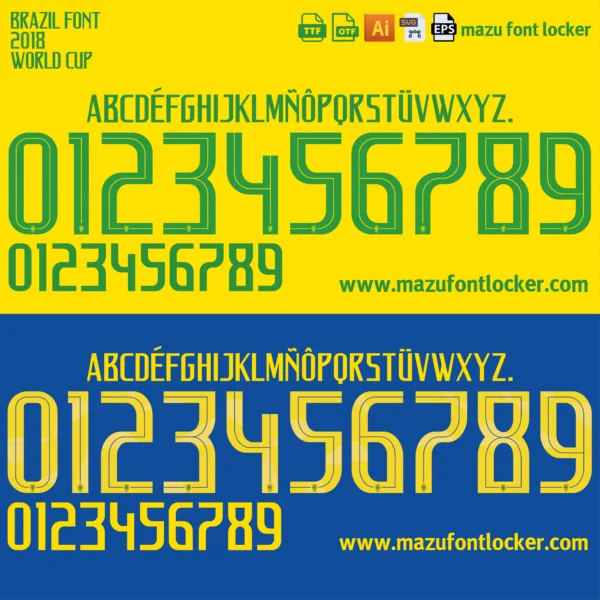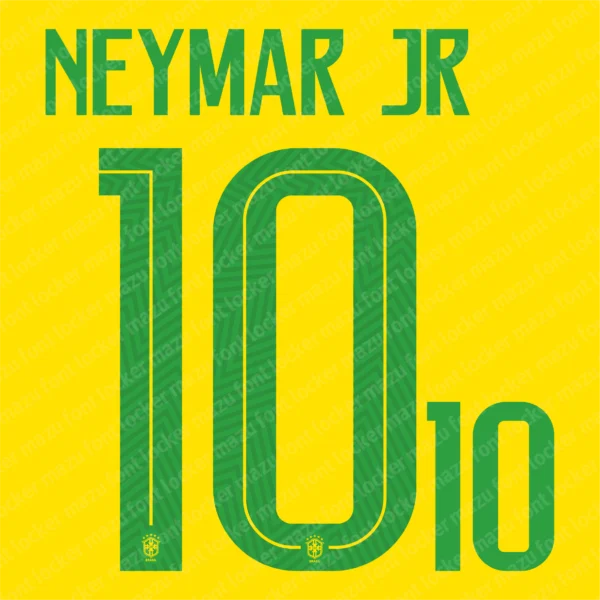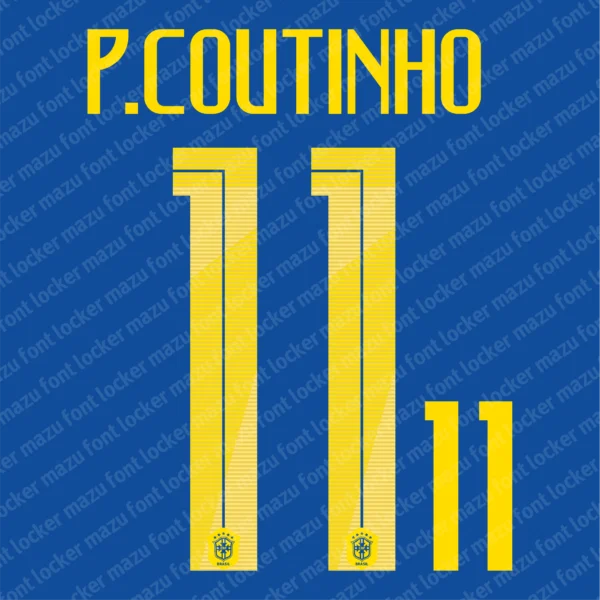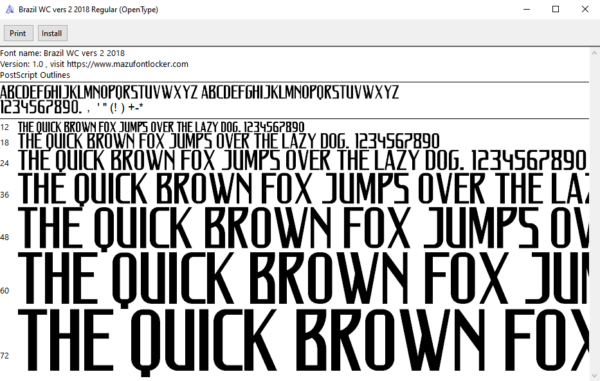
Brazil World Cup 2018 Font Vector – Legendary Seleção Golden Masterpiece
This font captures the bold, fearless, vibrant, and ultra-premium lettering that perfectly reflects Brazil’s iconic South American heritage combined with the fierce, unstoppable, and magical spirit of the Seleção — delivering unmatched flair, raw passion, elite craftsmanship, and pure Samba fire for premium jersey mockups, epic football designs, spectacular sports visuals, standout fan creations, and professional branding projects.
Brazil World Cup 2018 Font Vector – Authentic Canarinho Typeface
The Brazil World Cup 2018 Font Vector is a premium typeface that accurately recreates the official match lettering worn by the Brazil national team during the 2018 FIFA World Cup in Russia. This high-quality vector font kit captures the bold, vibrant, and iconic typography that represents the five-time world champions’ rich heritage, creative flair, and Samba football spirit of the Seleção.
Designed for professional designers and passionate Brazil supporters, the Brazil World Cup 2018 Font Vector delivers perfect authenticity for creating realistic jersey mockups, fan merchandise, matchday posters, social media graphics, and international football content. It pairs beautifully with the iconic yellow Brazil kit, one of the most recognizable national team identities in world football.
This font stands out because of its sharp vector precision and strong national identity. Every letter and number is crafted to match the exact style used on the players’ shirts during Brazil’s 2018 World Cup campaign. Whether you are creating realistic kit templates or exciting Canarinho-themed content, the Brazil World Cup 2018 Font Vector gives your designs that authentic Maracanã passion and Brazilian magic.
The letterforms in the Brazil World Cup 2018 Font Vector are bold, elegant, and highly readable. The strokes feature strong geometric construction combined with dynamic athletic styling, creating a vibrant appearance that stands out on jerseys while preserving Brazil’s legendary football heritage and creative excellence.
The numerals feature robust curves and clean, sharp edges, delivering a confident and premium appearance. This vector design ensures flawless scalability and excellent legibility across both print and digital applications.
- Full uppercase A–Z and numbers 0–9 in authentic Brazil World Cup 2018 style
- Multilingual Latin character support including Portuguese accents and special characters
- Includes the exact crest glyph placement used beneath player numbers
Brazil World Cup 2018 Campaign
The 2018 FIFA World Cup in Russia saw Brazil enter as one of the favorites, showcasing their trademark attacking flair and technical brilliance. Under manager Tite, the Seleção topped their group with impressive performances, including a 2-0 win over Mexico in the Round of 16. The squad featuring stars like Neymar, Philippe Coutinho, Thiago Silva, and Alisson reached the quarter-finals before a dramatic 2-1 defeat to Belgium. Despite the exit, the campaign highlighted Brazil’s enduring passion, creativity, and status as one of the greatest football nations.
The Brazil World Cup 2018 Font Vector is an independently designed typeface package. It is carefully crafted to replicate the official shirt lettering style used during Brazil’s 2018 World Cup campaign. This font kit is perfect for creative projects, fan edits, football-inspired artwork, and custom sports graphics.